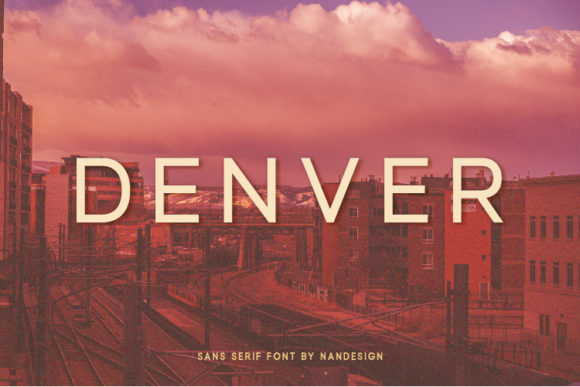
Introducing Denver Font, a revolutionary sans serif font that captivates your audience and transforms your designs into masterpieces. Its sleek and slender letters dance across the page, leaving a trail of elegance and sophistication in their wake.
Denver Font is the brainchild of Nan Design, a visionary font creator renowned for crafting typographic gems. With Denver Font, Nan Design has surpassed themselves, delivering a font that is not just a tool for communication but a work of art.